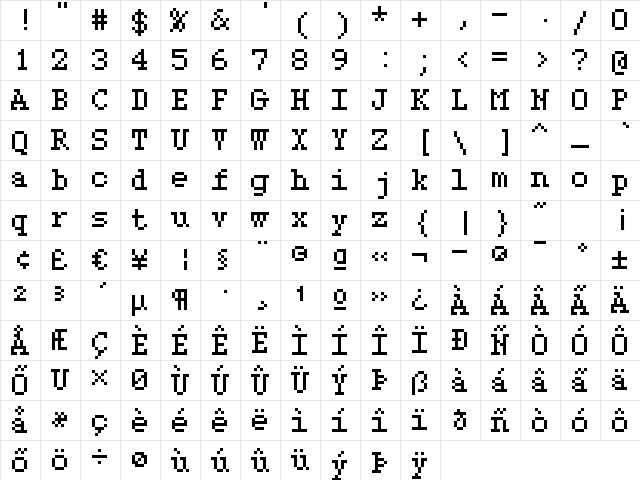
type 07_56 Regular
| Designer | Craig Kroeger |
Design Context for type 07_56 Typeface
type 07_56 offers clean, dependable letterforms without strong stylistic allegiance, making it a practical choice for designers who need flexibility.